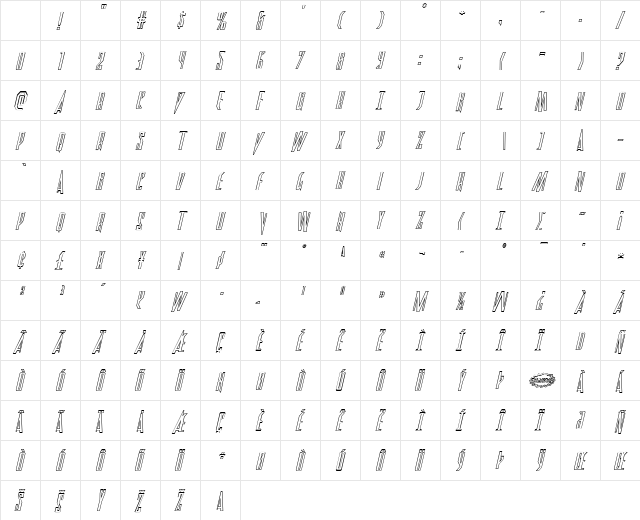
Archnemesis Outline Italic is built around its visual character rather than neutral utility - its distinctive forms are designed to make an impression at display sizes. The slanted form adds forward momentum and visual energy.
Font Pairing: Pair with a clean neutral sans-serif for body copy to let Archnemesis Outline Italic's character lead without overwhelming the composition.
Pro Tip: Use Archnemesis Outline Italic exclusively at display sizes - it was designed to be seen, not read at length. Let a neutral companion handle body copy.